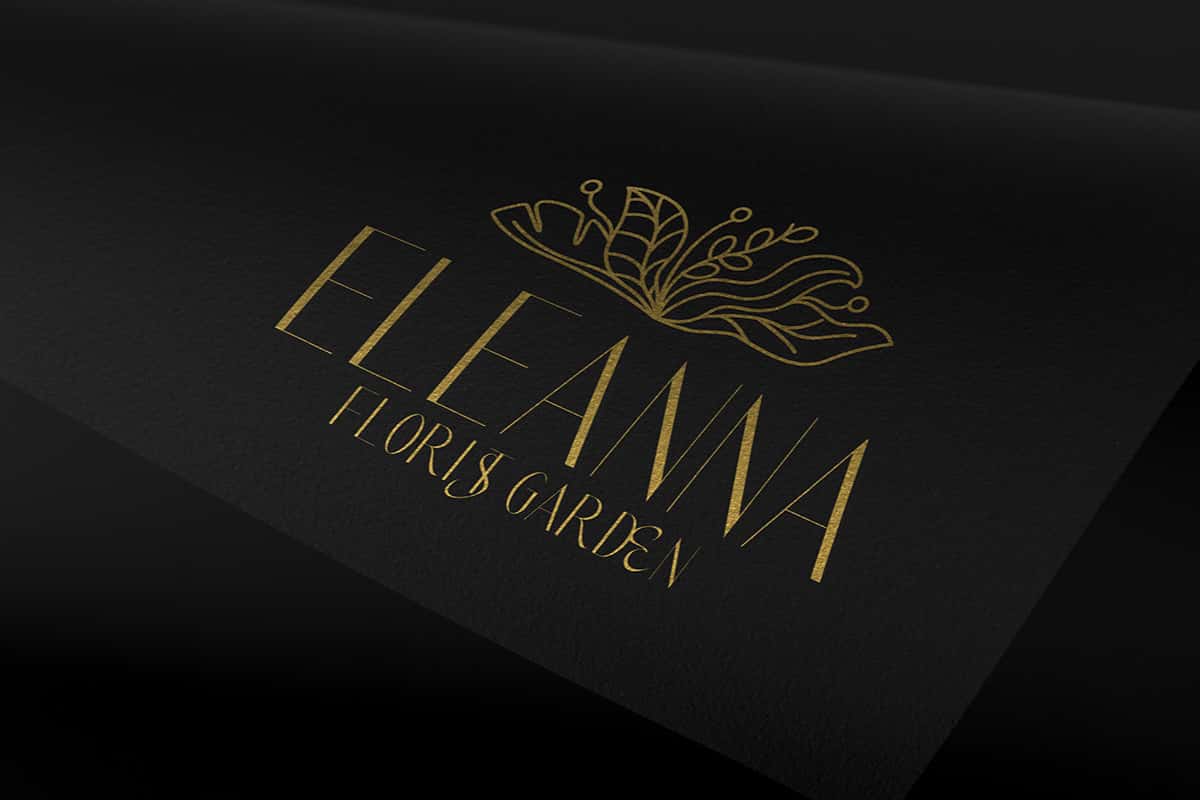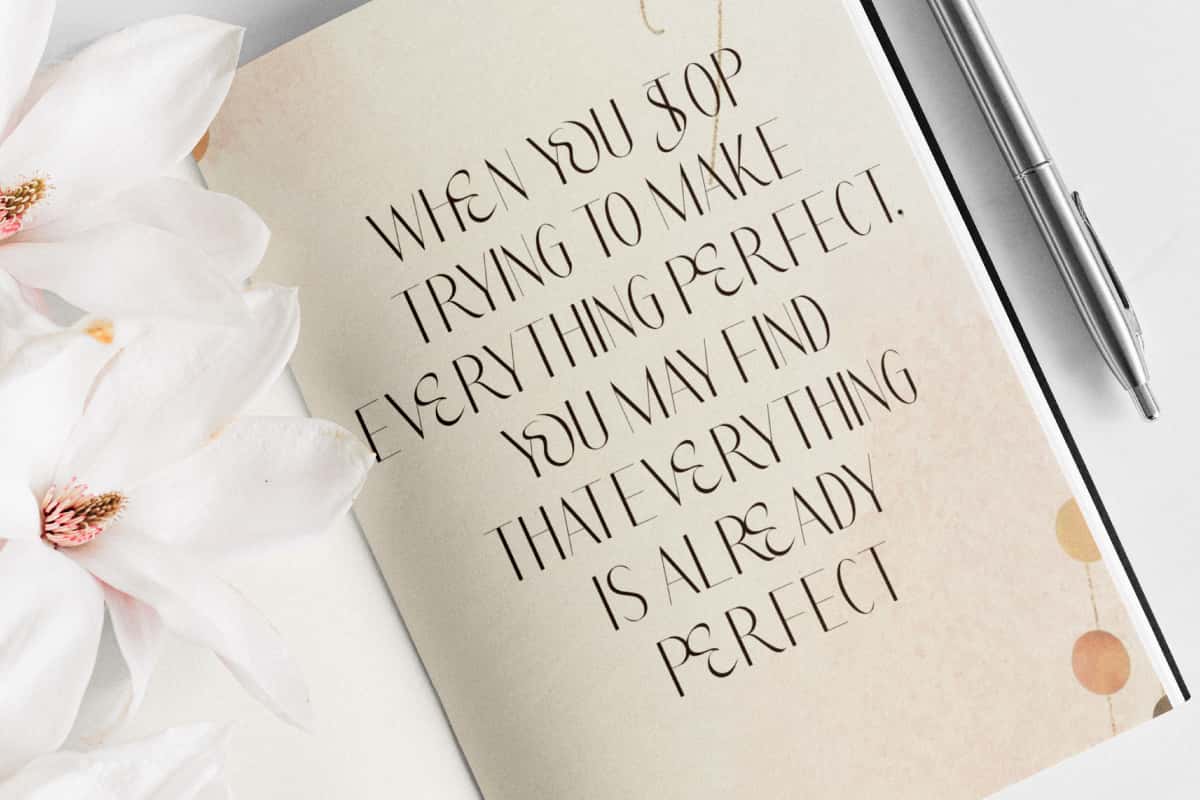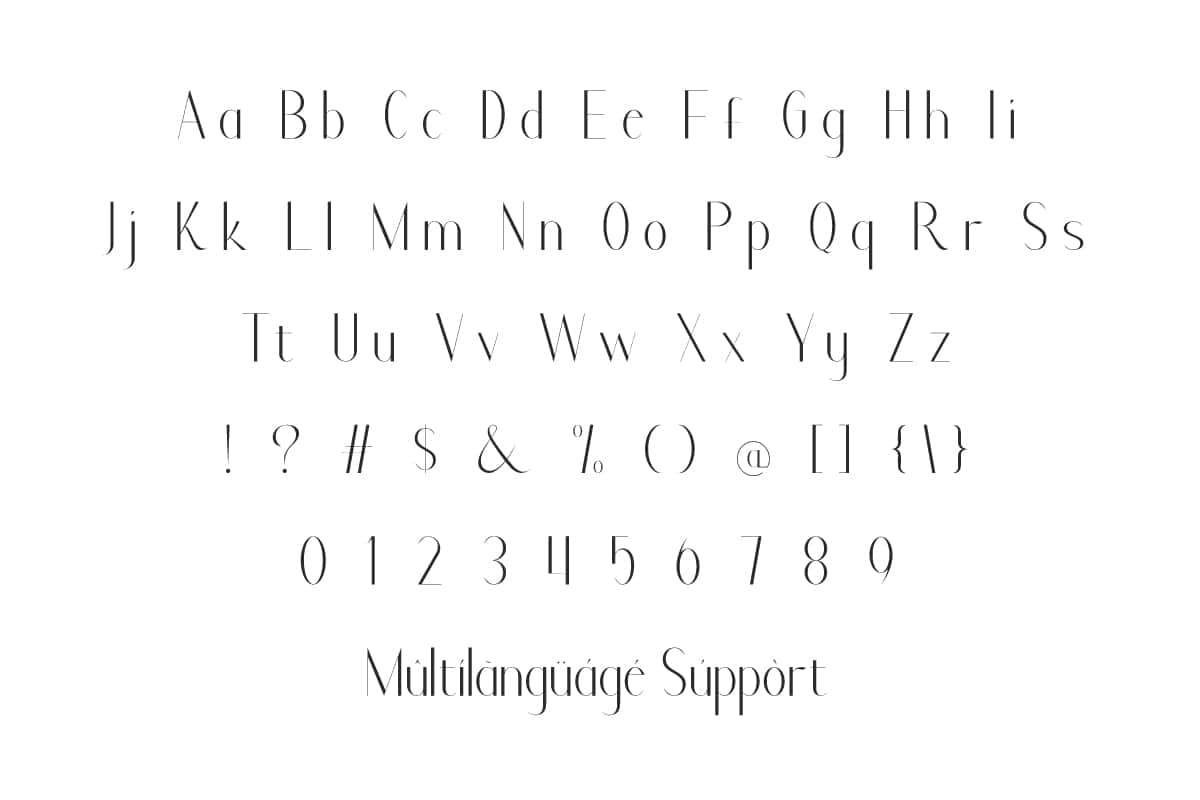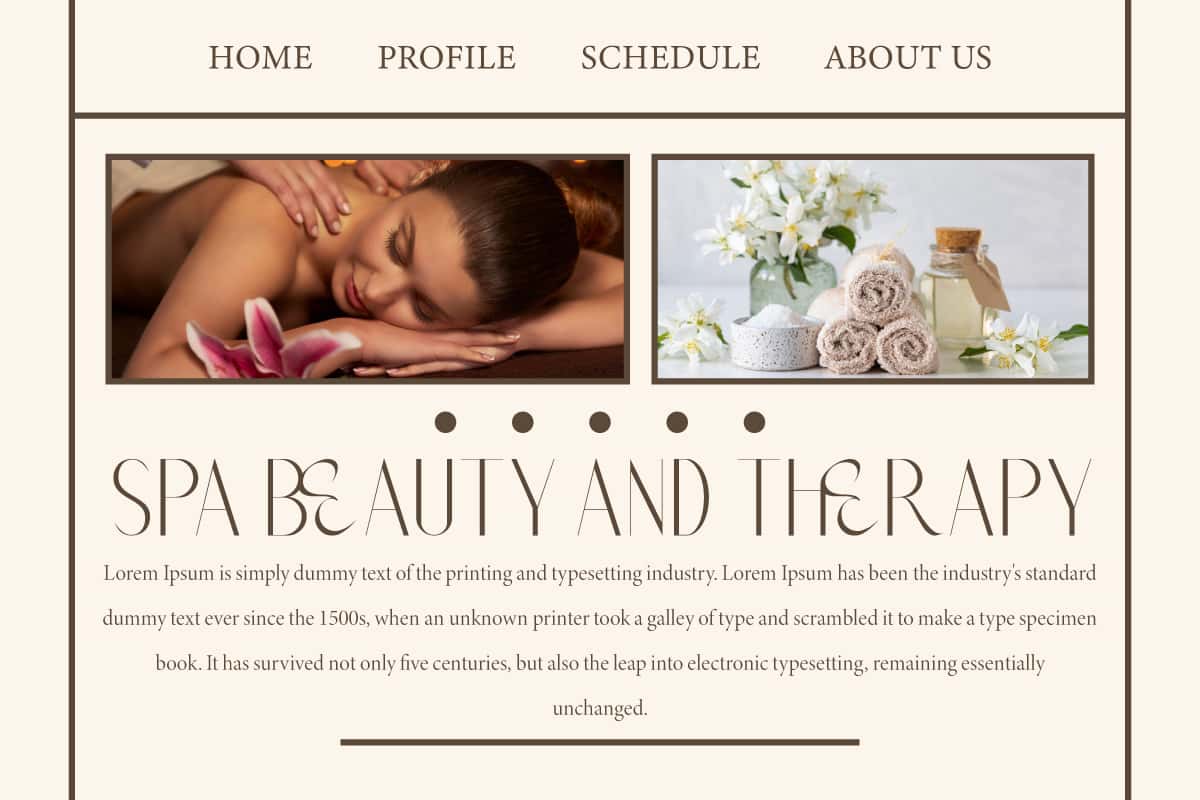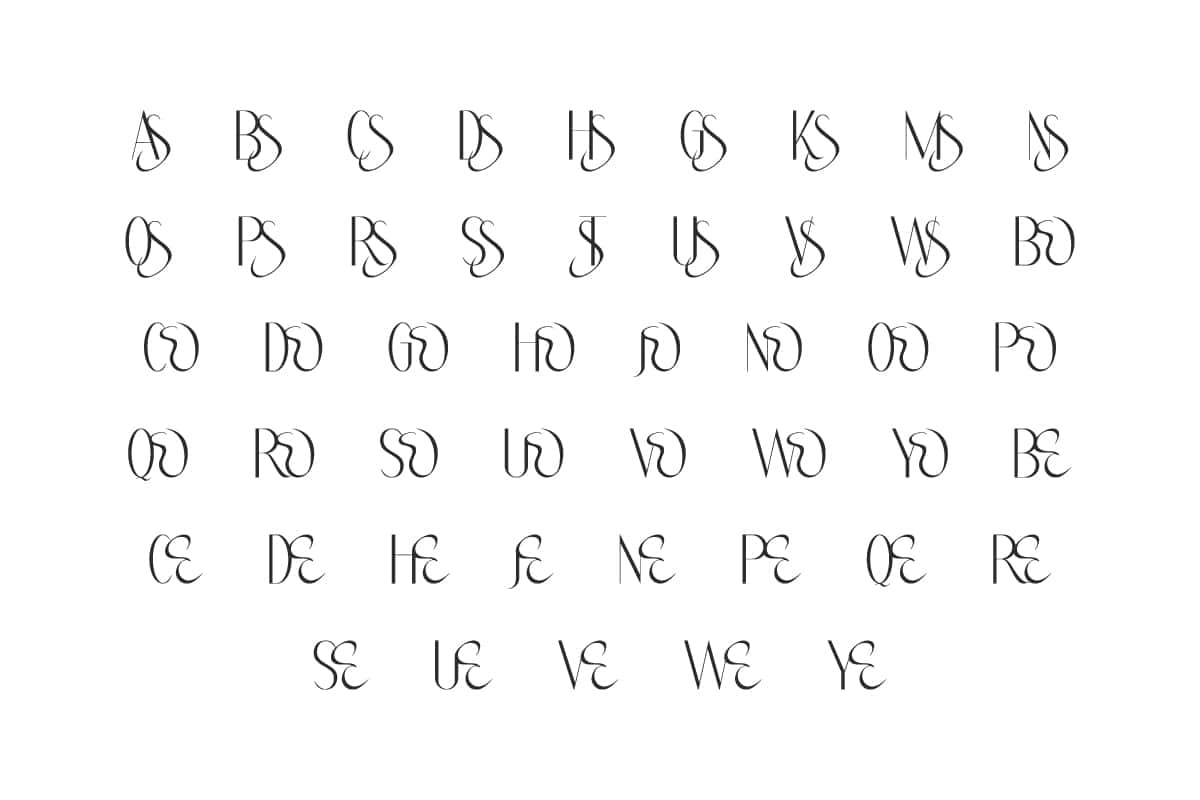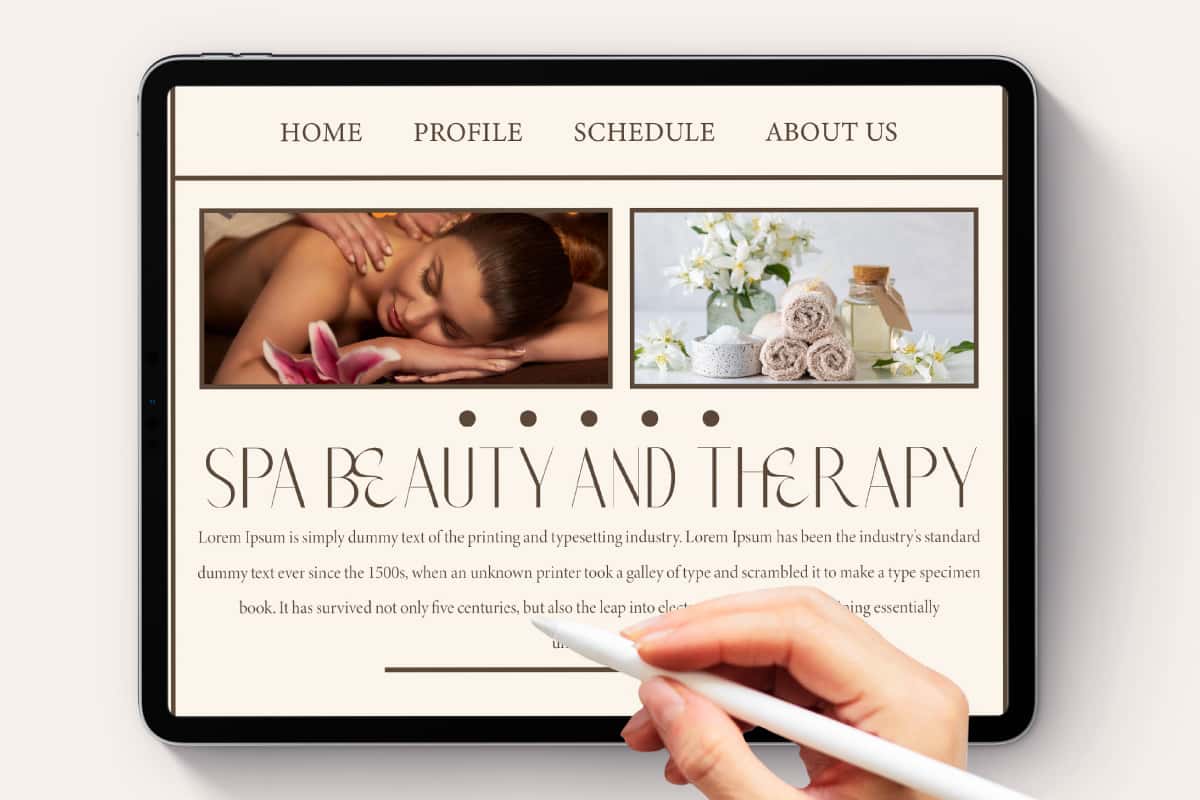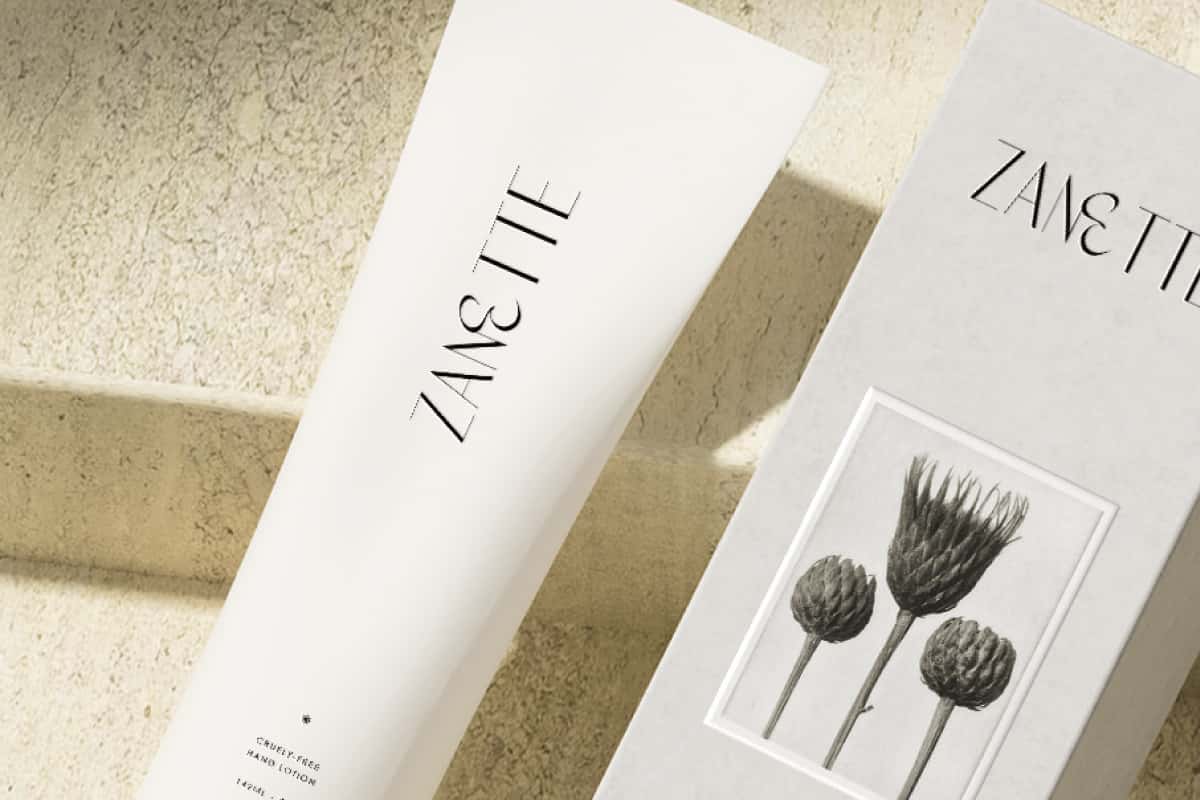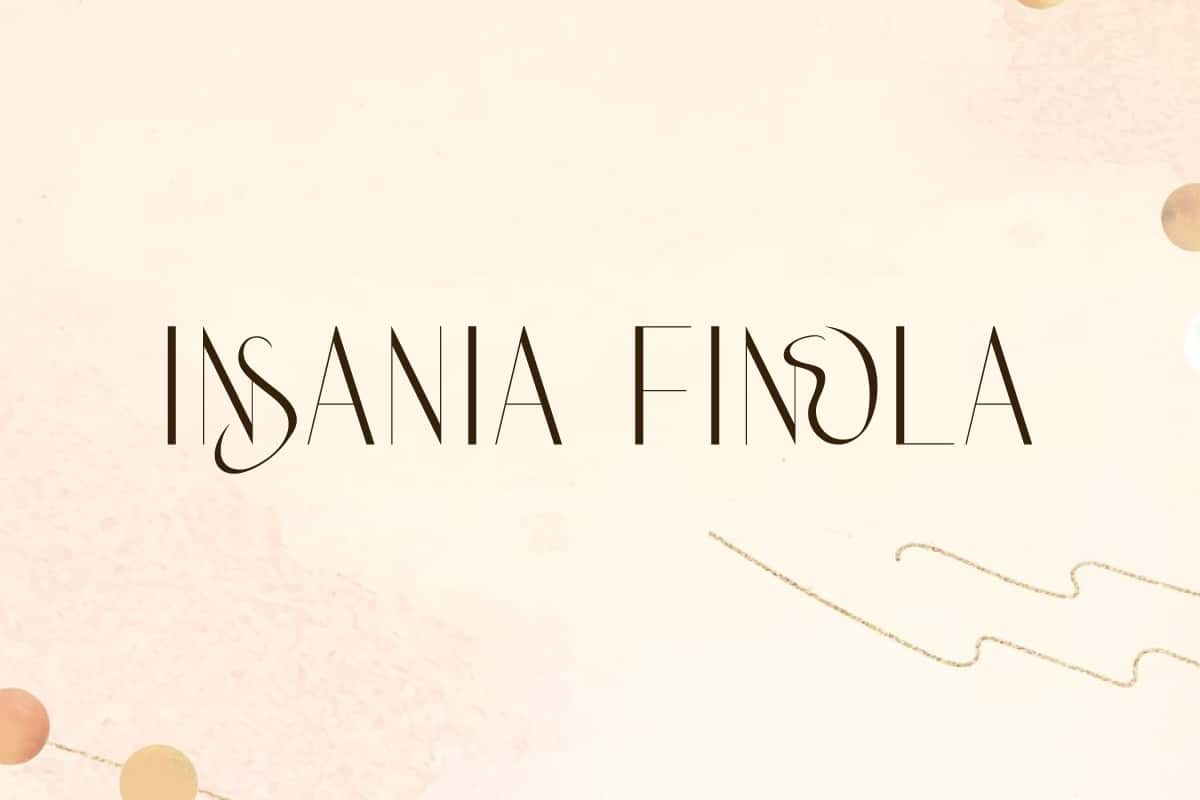
Insania Finola Font
Insania Finola Font is a clean-lined and contemporary sans-serif font that elegantly combines modern precision with a touch of artistic ligature.
Insania Finola Font is a sleek sans serif font that blends modern and vintage decorative elements, offering an exclusive feel through its elegant letterforms and artistic curve variations. Perfect for art typography, banners, blogs, branding logo, business card, mockup, product packaging, template, website and etc.
Insania Finola Font includes full set of Uppercase and Lowercase Basic Characters, Number, Punctuation, Symbol, and Ligature. It’s minimalist, but the details make it lively. Perfect for accessories and gift, art galleries, authors, books, clothing, cosmetics, events, florist, furniture, photography, restaurants, spa salons, and more.